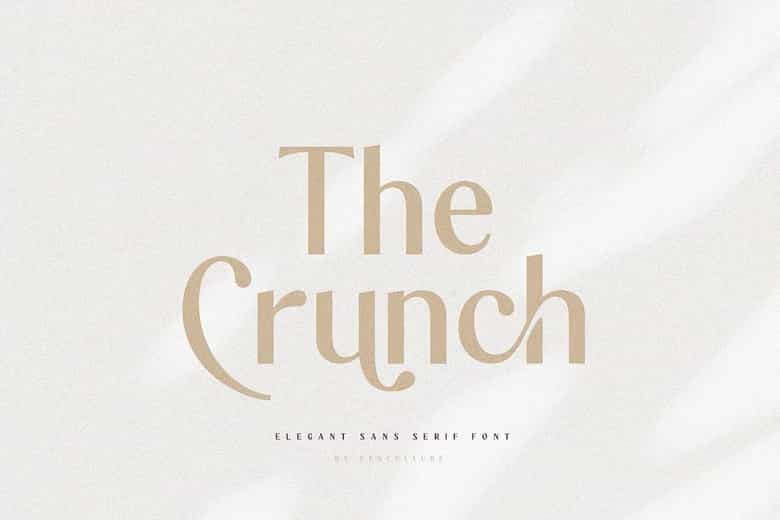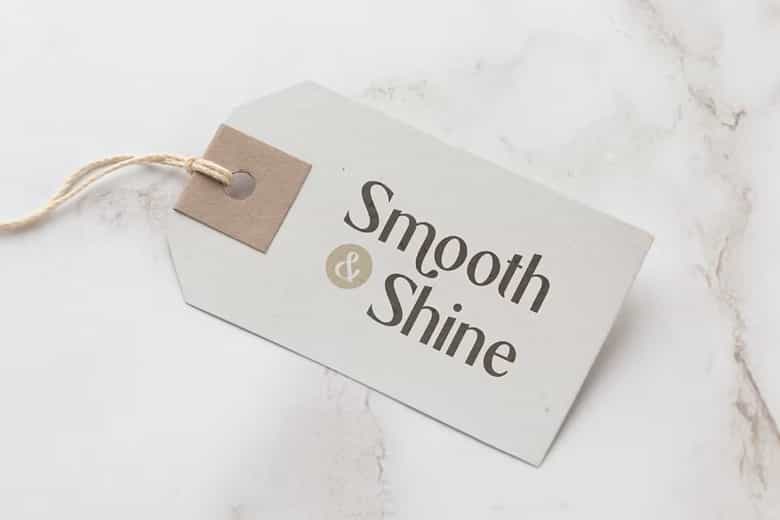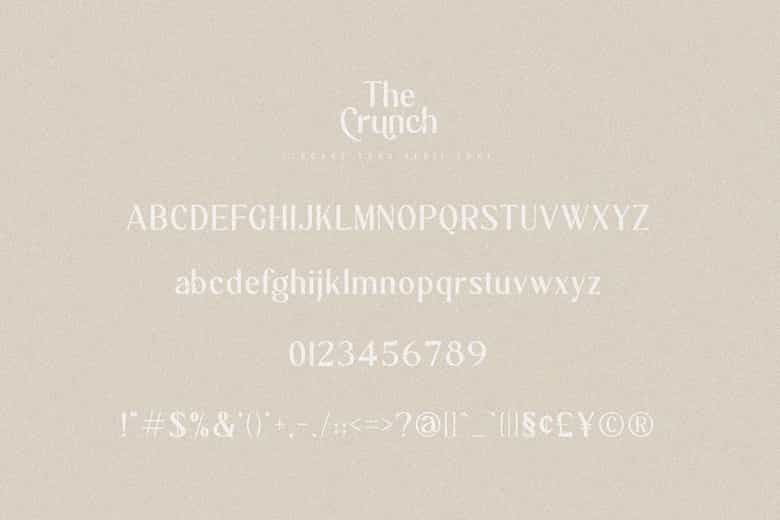
The Crunch Font
Crunch is an elegant and modern sans serif typeface. It’s perfectly suitable for designs of all kinds such as logo design, poster, branding, embroidery and much more. This font contains a great deal of alternate, elegant ligature, so you can match it up and create a sensational design.